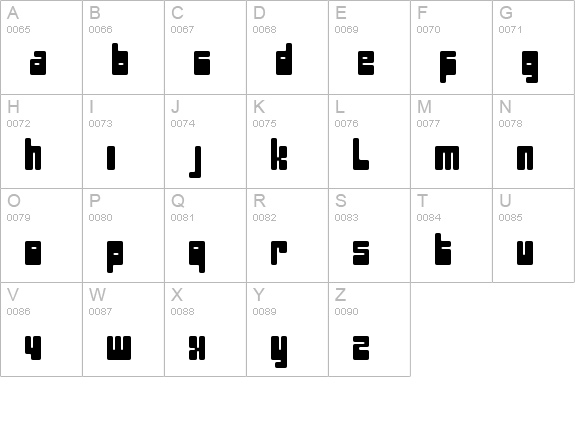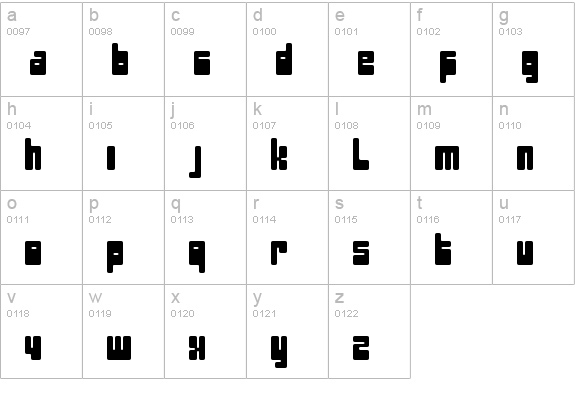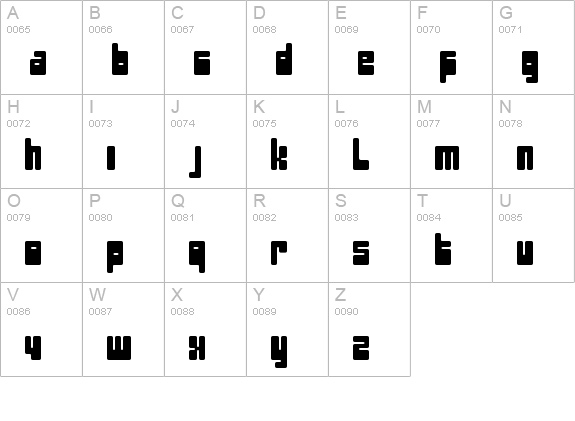
pectopah Font Details
Introducing Pectopah Font, a stunning typeface that exudes elegance and sophistication. Designed with meticulous attention to detail, this font captivates with its clean lines and timeless appeal. Whether you're designing a logo, creating a wedding invitation, or crafting a magazine layout, Pectopah Font is the perfect choice to elevate your project to new heights. With its versatile character set, Pectopah Font offers a wide range of possibilities. From bold and impactful headlines to delicate and intricate details, this font truly shines in any context. Its sleek and modern design effortlessly blends with both contemporary and classic aesthetics, making it a versatile choice for designers of all styles. One of the most remarkable aspects of Pectopah Font is that it is free to download at FontsMarket.com. Yes, you read that right – this exceptional font is yours to use and enjoy without any cost. FontsMarket.com is proud to offer this exquisite typeface to the design community, acknowledging the importance of accessible resources in the creative process. Downloading Pectopah Font from FontsMarket.com is a breeze. Simply visit the website, locate the font, and with just a few clicks, it will be yours to enhance your designs and bring your artistic visions to life. Take advantage of this incredible opportunity to add a touch of sophistication and refinement to your projects – and all without spending a dime. Pectopah Font is not only visually stunning but also highly legible, ensuring that your messages are clear and impactful. Its wide range of weights and styles allows for seamless integration across various design applications, providing you with endless possibilities to explore and create. So why wait? Download Pectopah Font today and unleash your creativity. Whether you're a professional designer, a freelance artist, or a passionate hobbyist, this font is a must-have addition to your typographic toolbox. Elevate your designs, make a lasting impression, and let Pectopah Font be the perfect companion on your creative journey.